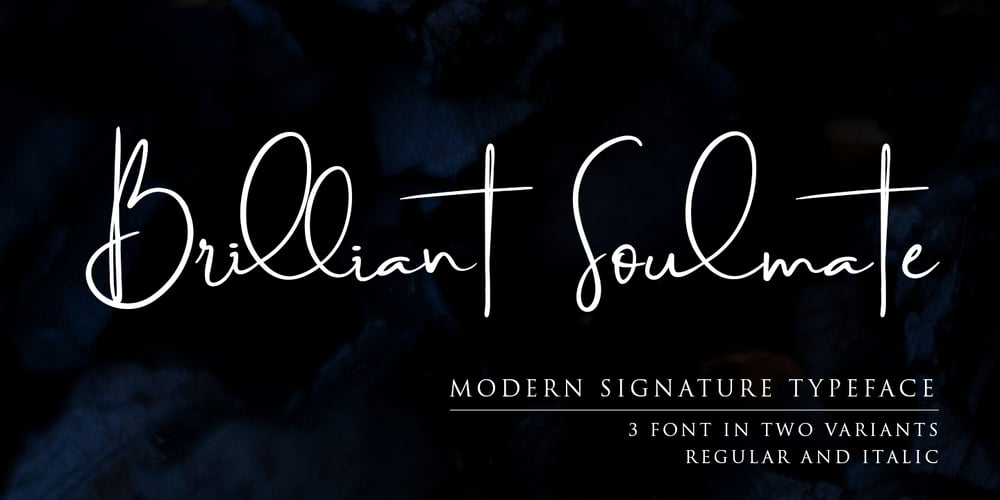
Brilliant Soulmate Font Family was designed by Donis Miftahudin and published by Din Studio. Brilliant Soulmate contains 6 styles and family package options. Brilliant Soulmate is a modern signature typeface. It’s perfect for any signature or name card design, for branding projects, product packaging, quotes, logos, book covers, and many other awesome projects. With the combination of elegant and casual style, this font contains a full set of lowercase and uppercase letters. Includes: Brilliant Soulmate Regular Version 1,2,3 Brilliant Soulmate Italic Version 1,2,3 Features: Stylistic Alternates and Ligatures Character Set A-Z Numerals and Punctuation (OpenType Standard) · Accents (Multilingual Characters) · PUA Encoded With an elegant and casual design, I hope this font could fit your design needs.